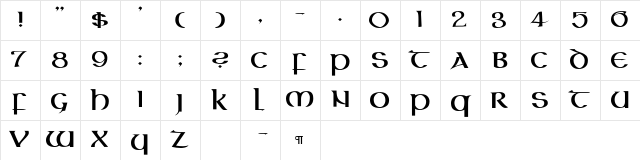
CallifontsF56PostScript Regular Free Font
CallifontsF56PostScript Regular
Design Context for CallifontsF56PostScript
CallifontsF56PostScript flows with the natural rhythm of handwritten lettering, making it ideal for designs that call for warmth and personal expression.
Font Pairing: Combine CallifontsF56PostScript with a simple geometric sans for maximum contrast - the tension between flowing curves and clean structure is a classic typographic pairing.
Pro Tip: Use CallifontsF56PostScript for short runs of text - names, titles, or taglines. Extended body copy in script faces tires the eye quickly.